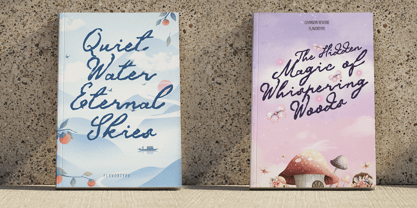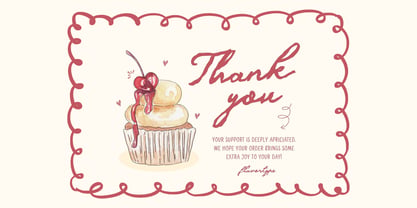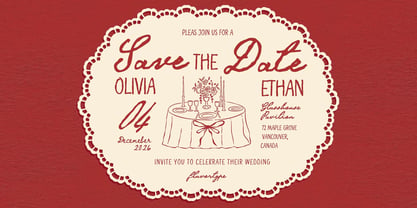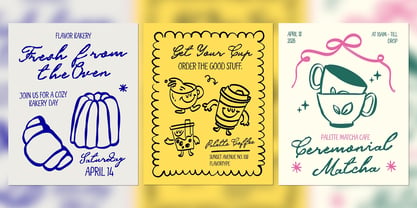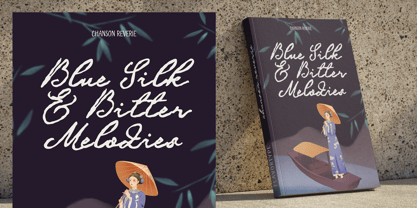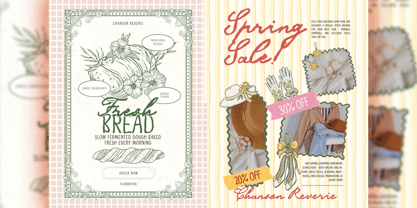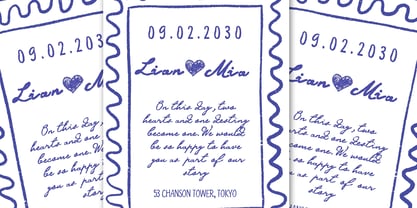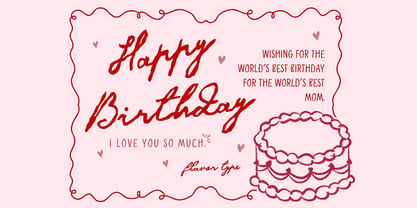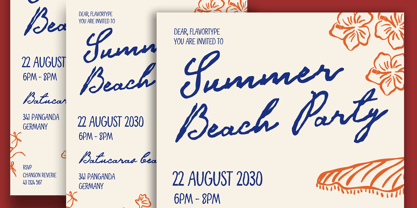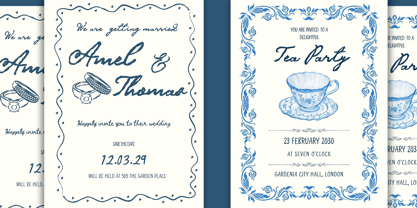
Chanson Reverie
The Chanson Reverie Font Family was designed by Ilham Herry, Adam Fathoni Haris, panji nugroho, Rizky Setyaludin and published by Flavortype. Chanson Reverie contains 2 styles and family package options. More about this family
Chanson Reverie is a handmade font duo with a soft, playful personality and a touch of nostalgia. It pairs an expressive handwritten script with a hand-drawn sans serif, both created to feel natural, imperfect, and full of character. The slightly uneven lines and organic shapes give it the charm of something written by hand warm, personal, and a little whimsical.
Inspired by old postcards, handwritten notes, paper scraps, and everyday little moments, Chanson Reverie was made for designs that need a more personal and heartfelt touch. The script flows naturally with loose curves and relaxed movement, while the sans serif keeps the same handcrafted feel, making them work beautifully together without looking too polished or rigid.
Whether you’re designing invitations, branding, packaging, social media content, greeting cards, posters, or editorial layouts, this duo adds a cozy and expressive feel that instantly makes a design more memorable. Chanson Reverie is perfect for projects that want to feel sweet, creative, and effortlessly handmade.